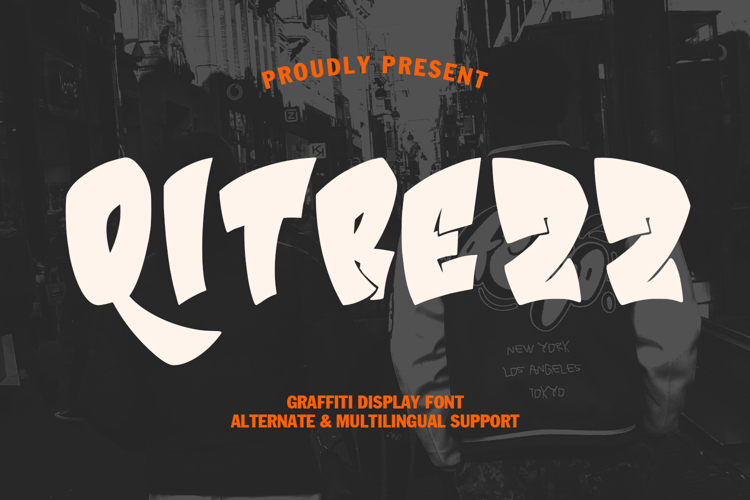
Qitrezz is a fancy graffiti style font. With back slanted bold stroke, fun character with a bit of alternates. To give you an extra creative work. Qitrezz font support multilingual more than 100+ language. This font is good for logo design, Social media, Movie Titles, Books Titles, a short text even a long text letter and good for your secondary text font with sans or serif. Make a stunning work with Qitrezz font.